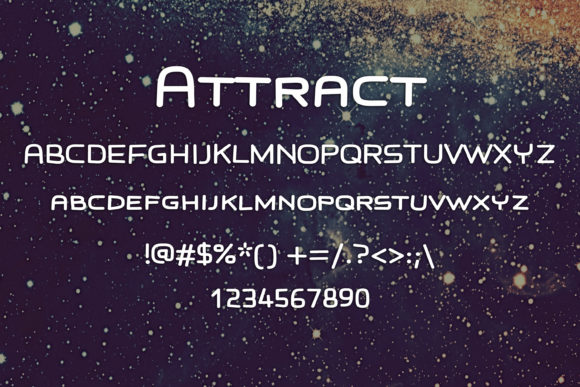
Unlock the Power of Visual Storytelling with Attract Font
You know that moment when an idea hits you, and you can’t wait to bring it to life? That spark of creativity is what drives designers to push the boundaries of innovation. But sometimes, it takes the right tools to turn that spark into a masterpiece. That’s where Attract Font comes in – a display font that’s out of this world and ready to elevate your designs to the next level.
Attract Font is more than just a font; it’s a statement piece that can turn any design idea into a showstopper. Whether you’re a seasoned designer or just starting out, this font is a valuable asset to have in your toolkit. With its unique and futuristic feel, Attract Font is perfect for making a lasting impression and capturing the attention of your audience.
Attract Font Key Features
- Unique Characteristics: Attract Font features a distinctive, modern design with a focus on clean lines, geometric shapes, and a touch of elegance.
Attract Font Review
Overall, I’d say Attract Font has some nice qualities, but it’s not without its flaws.
- The font is highly legible, making it perfect for body text and long passages.
- Its friendly and approachable tone makes it suitable for various industries, including creative and corporate.
- The font is highly customizable, allowing for easy adjustments to size, color, and spacing.
- It’s available in multiple weights, making it easy to create visually appealing hierarchies.
- The font may not be as effective for headlines or titles, as it can feel a bit too casual.
- Some users may find the font too similar to other popular fonts, making it less distinctive.
- The font may not be ideal for large or complex text blocks, as it can become overwhelming.
Attract Font is a solid choice for designers looking for a friendly and approachable font. While it may not be the most distinctive or attention-grabbing font, it’s a reliable option for body text and smaller text blocks. With some careful consideration and customization, Attract Font can be a great addition to any design project.
Getting the Most Out of Attract Font
To get the most out of the Attract Font, try combining it with other design elements such as bold text, icons, and graphics. Experiment with different font sizes, colors, and styles to create a unique and eye-catching design.
The Attract Font is commonly used in marketing materials, social media graphics, and presentations. It’s ideal for creating attention-grabbing headlines and titles, and can be used to convey a sense of luxury, sophistication, and elegance.